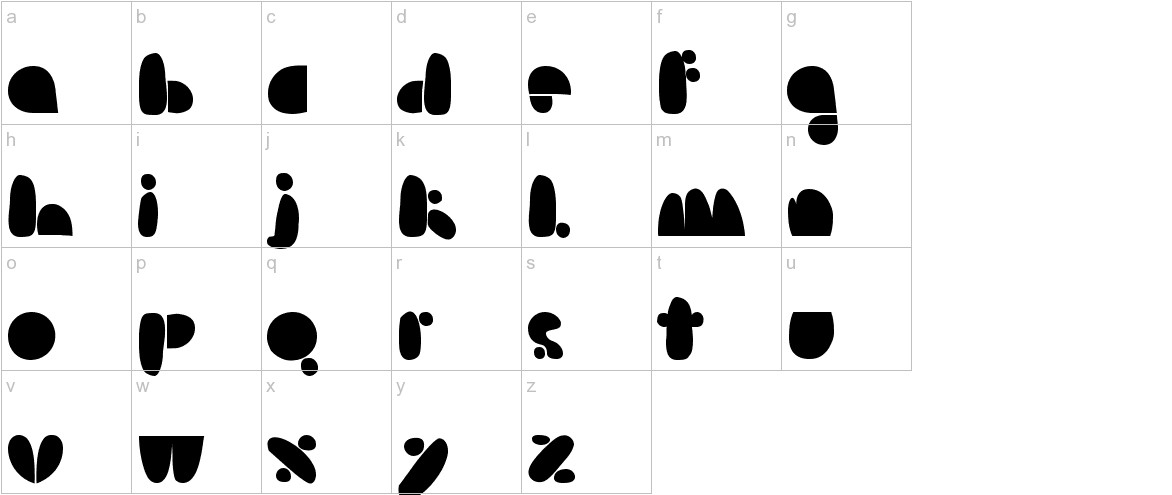
Arsenale Blue
Arsenale blue is a soft rounded font born by the collaboration of different graphic designers. It is inspired by the lightness of clouds in groovy and fancy way and the military stancil fonts.